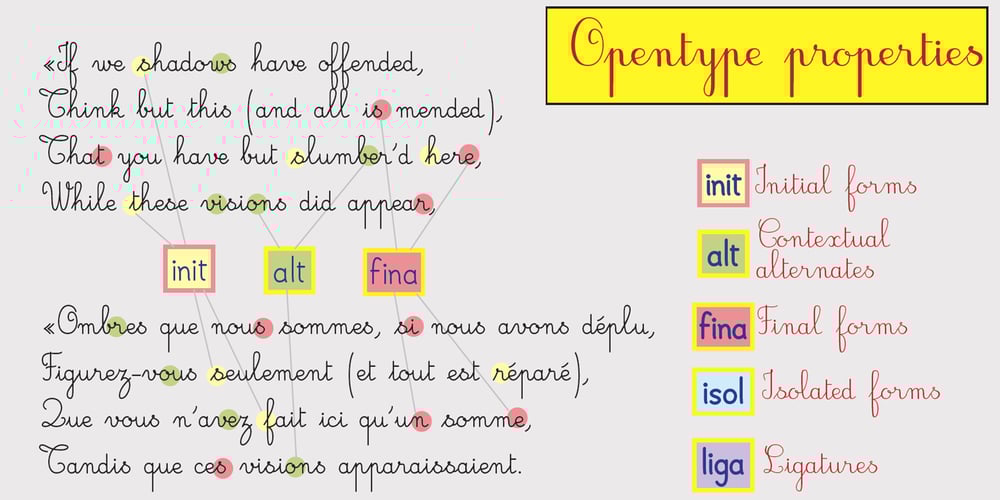
Gaston Font Family was designed by Jean Boyault and published by JBFoundry. Gaston contains 19 styles and family package options. Gaston is a complete solution for teachers and pupils. A wide choice of styles allows to create varied and homogeneous documents. Gaston uses a lot of contextual alternates so it’s necessary to use friendly OpentType applications. Note: Previews don’t render the font accurately (Contextual Alternate aren’t shown). To have a fair idea of how it will appear, look at the presentation here.